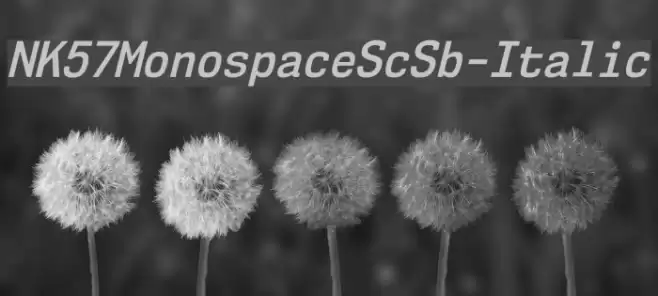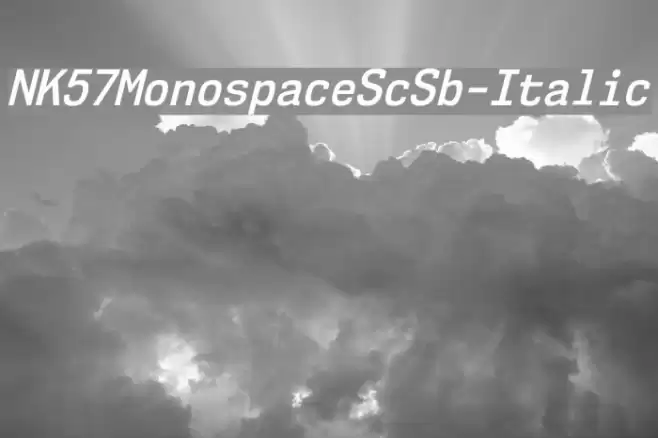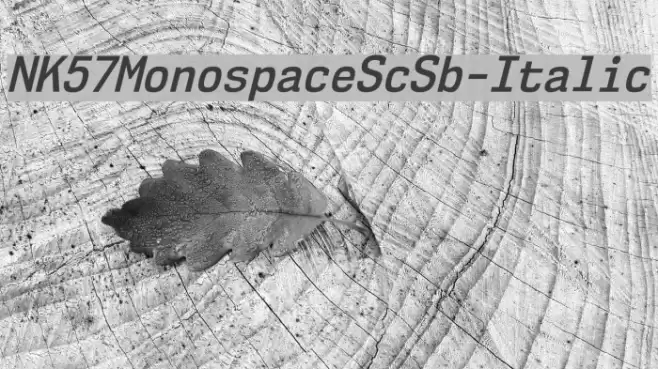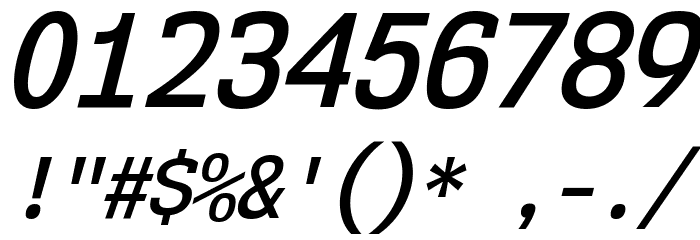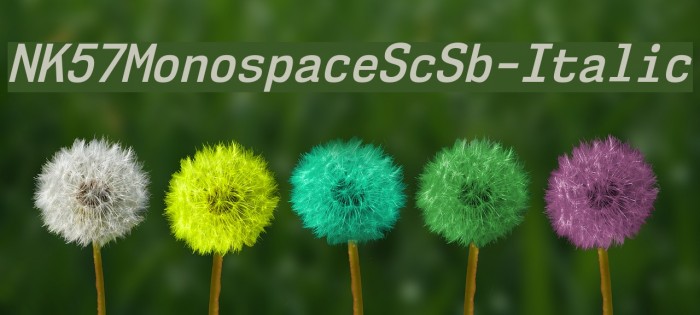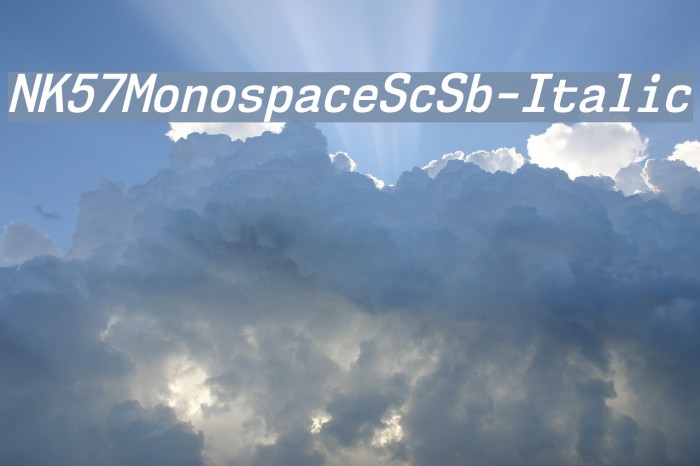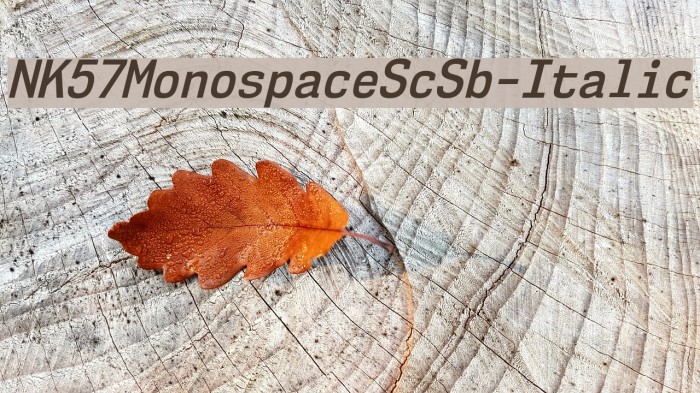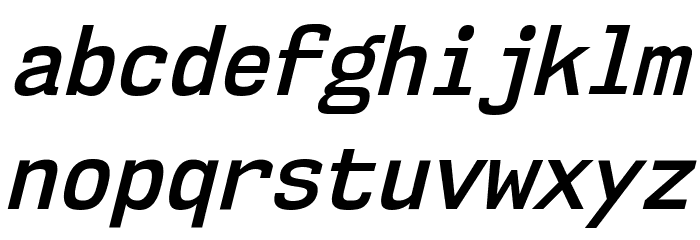
NK57MonospaceScSb-Italic Font
NK57MonospaceScSb-Italic Description
This font is a modern, monospaced typeface with a sleek and professional appearance. Each character is evenly spaced, ensuring a uniform look across all text. The italic style adds a dynamic and forward-leaning aspect, making it suitable for both technical and creative applications. The characters are well-defined with a slight slant, enhancing readability while maintaining a contemporary aesthetic. The font includes a full set of uppercase and lowercase letters, numerals, and a variety of special characters, making it versatile for various uses.
A modern, monospaced italic font with a sleek and professional look from Basic fonts.
- Proposed Projects: Ideal for coding, technical documentation, modern branding, and creative design projects.
- Use Case: Coding, Technical documentation, Branding